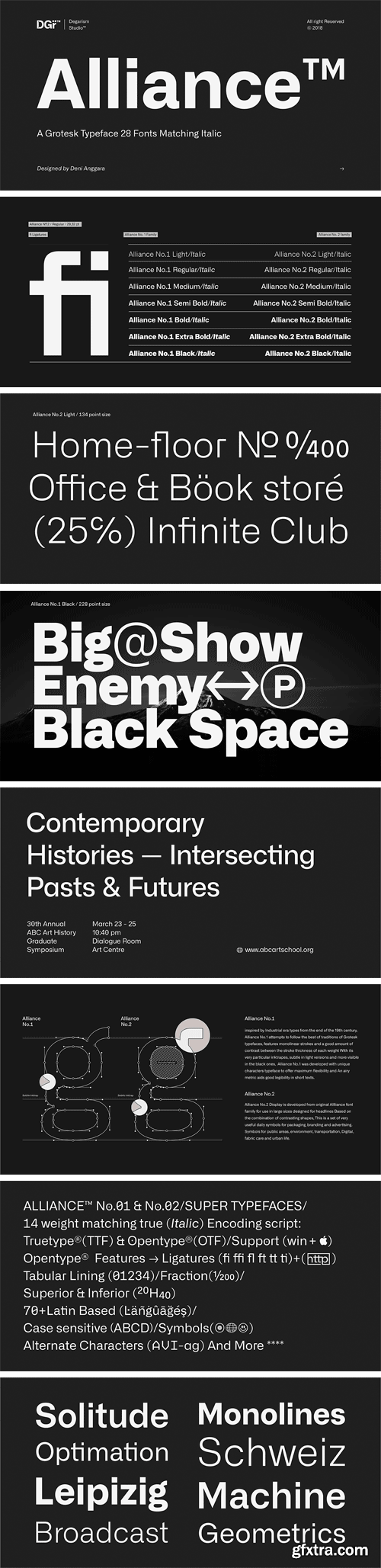
Free and Premium Quality Fonts - Best Premium FontsThe opendocument format isoiec 263002006 and rich text format can use it to specify the sans serif generic font family name for a font used in a document. A sans serif typeface with 12 styles available from adobe fonts for sync and web use. Explore brandon grotesque designed by hannes von doehren at adobe fonts.
grotesque sans serif fonts
Guenter gerhard lange class.
Grotesque sans serif fonts. Adobe fonts is the easiest way to bring great type into your workflow wherever you are. The italics arent simply slanted versions of the regular fonts but were designed separately and as such take on a more exaggerated character. We have 64 free grotesque sans serif fonts to offer for direct downloading 1001 fonts is your favorite site for free fonts since 2001. The first grotesques appeared in 1816 and were used to draw attention to headlines and advertisements.
Brandon grotesque is a good example of a font style that is more grotesque than neo grotesque. Samples of sans serif typefaces typeface name example 1 example 2 example 3 agency fb designer. It was designed by hannes von doehren in 200910. Designed by tshepo mosoeu rhetoric is also a grotesque 19th century to early 20th sans serif designs inspired font.
Fonts without serif and grotesque sans serif fonts in sans serif fonts there are no serifs at the ends of the letters which is considered their main feature. It is designed to be a versatile companion and features a range of weights with italics. Brandon grotesque is a sans serif type family of six weights plus matching italics. Sans serif fonts are popular with brands and are usually easier to read on screens because they have a simpler design than serif fonts.
Presumably refers to the popularity of sans serif grotesque and neo grotesque types in switzerland. Caleigh huber morris fuller benton class. Download it at behance. Related tags sans serif display sans modern geometric sans serif legible grotesque grotesk swiss clean text magazine headline german corporate technical logotype heavy classic branding bold advertising poster.
Influenced by the geometric style sans serif faces that were popular during the 1920s and 30s the fonts are based on geometric forms that have been optically corrected for better legibility. The grotesque font style has seen an uptick in popularity over the past few years and designers are coming up with new ways of interpreting this older sans serif style. Adelle sans is a grotesque counterpart to the awarding winning slab serif. It is great for headings and body text.